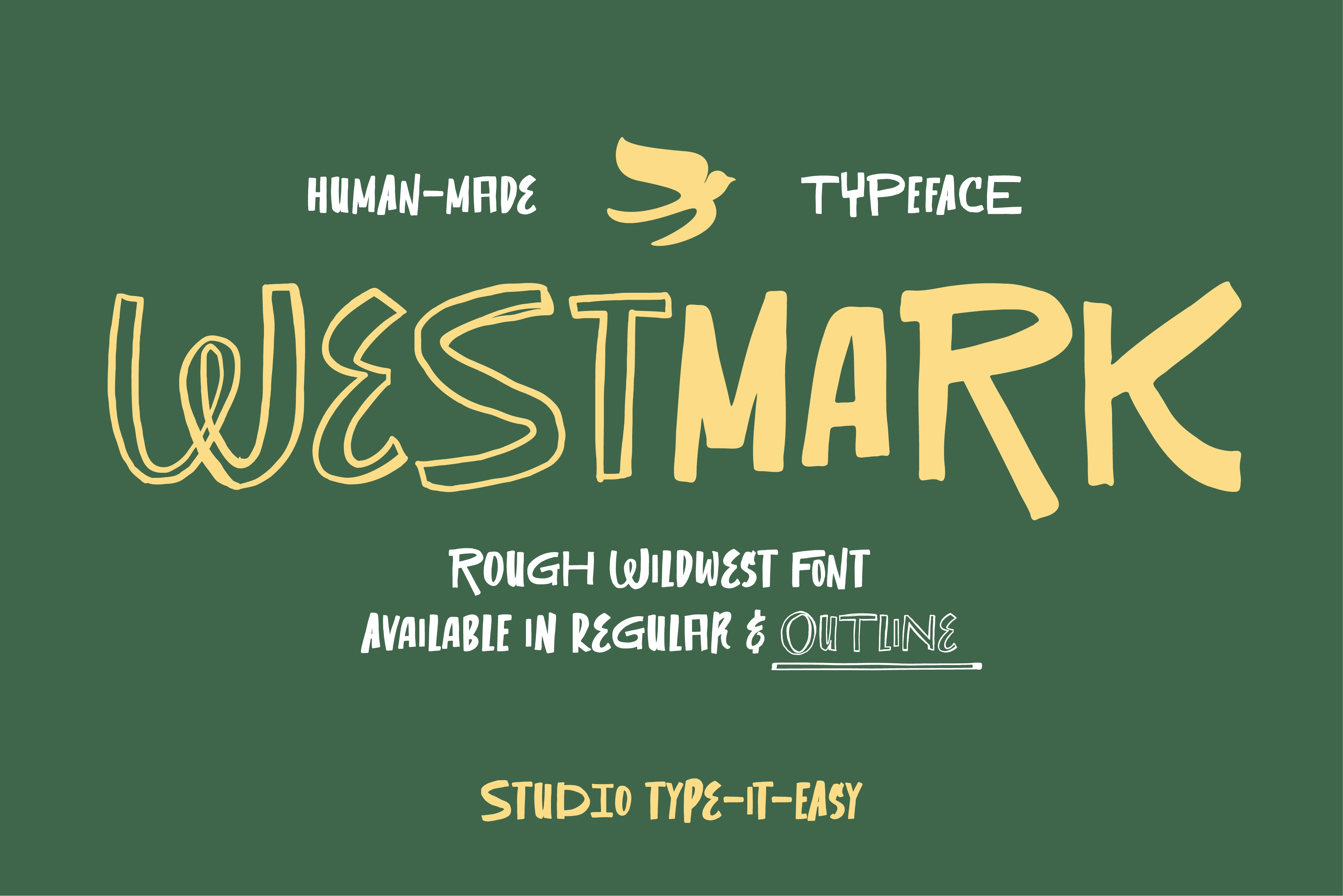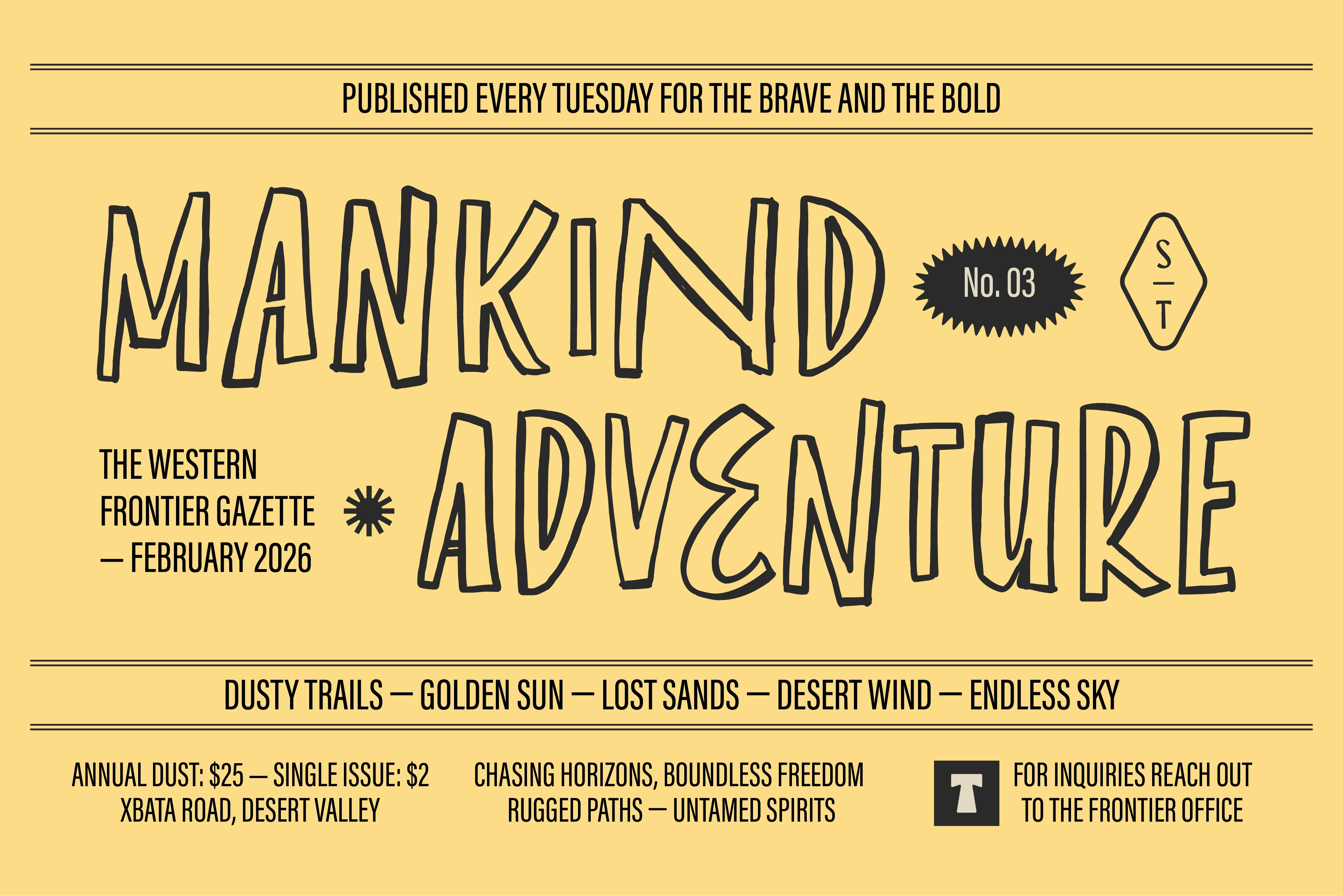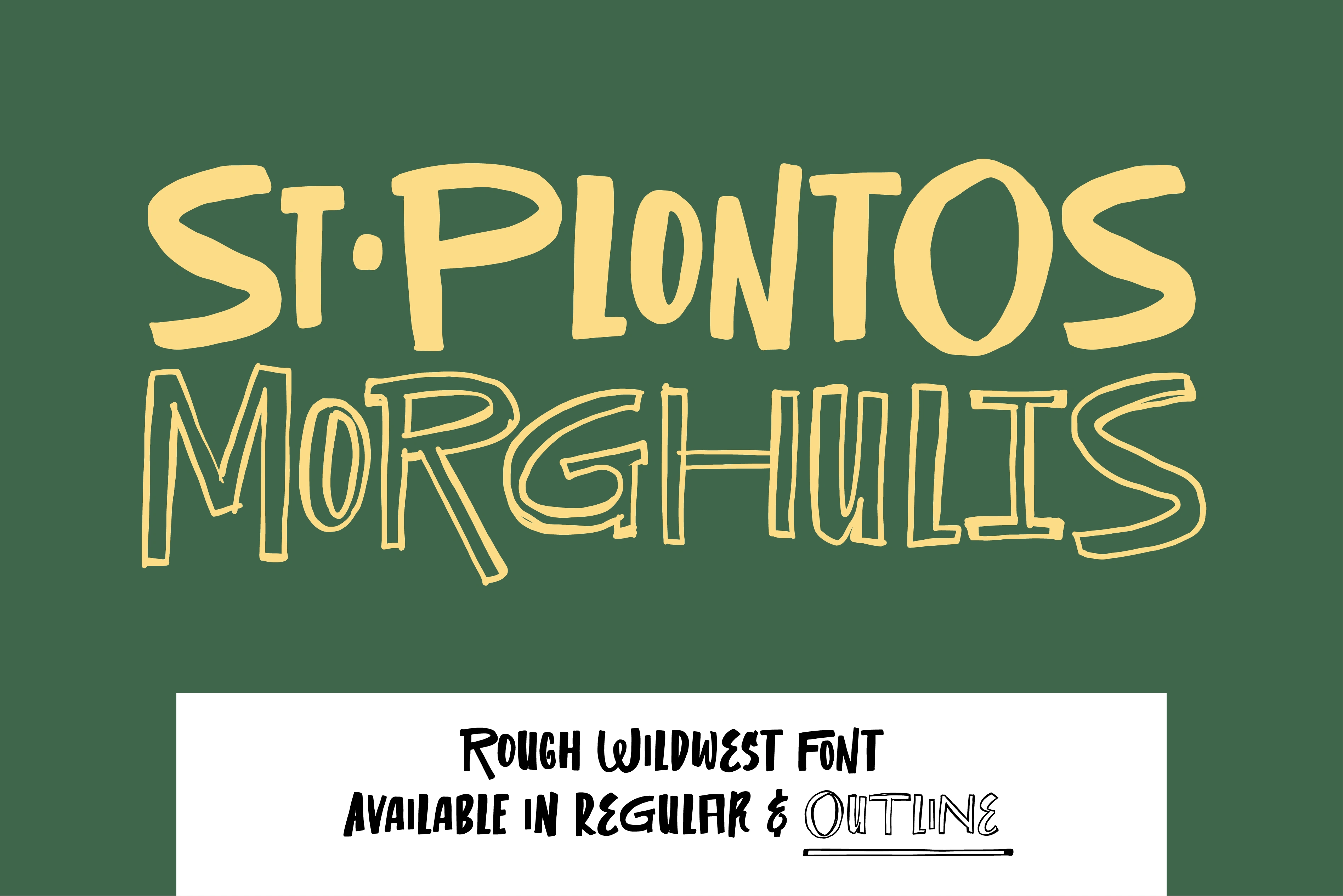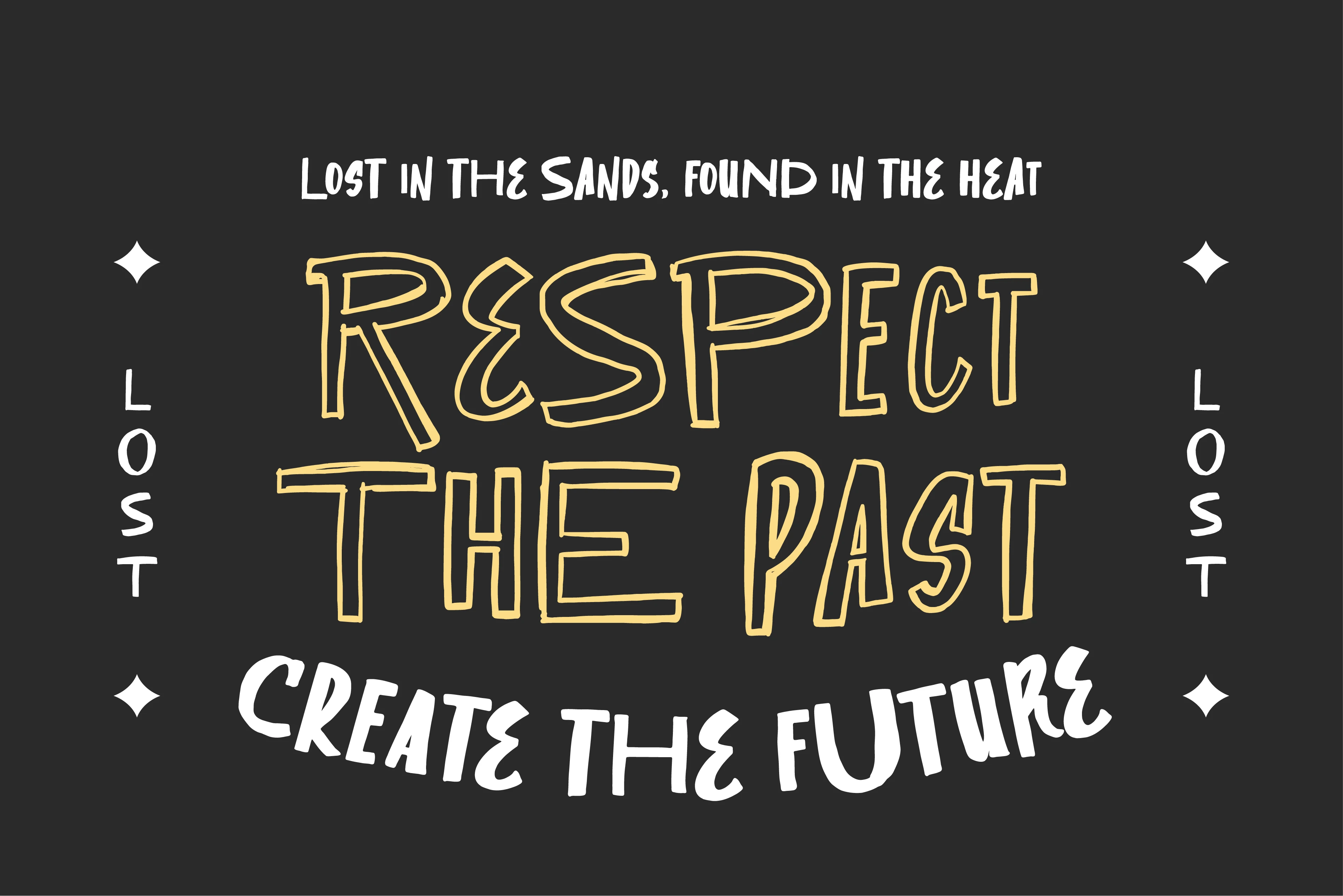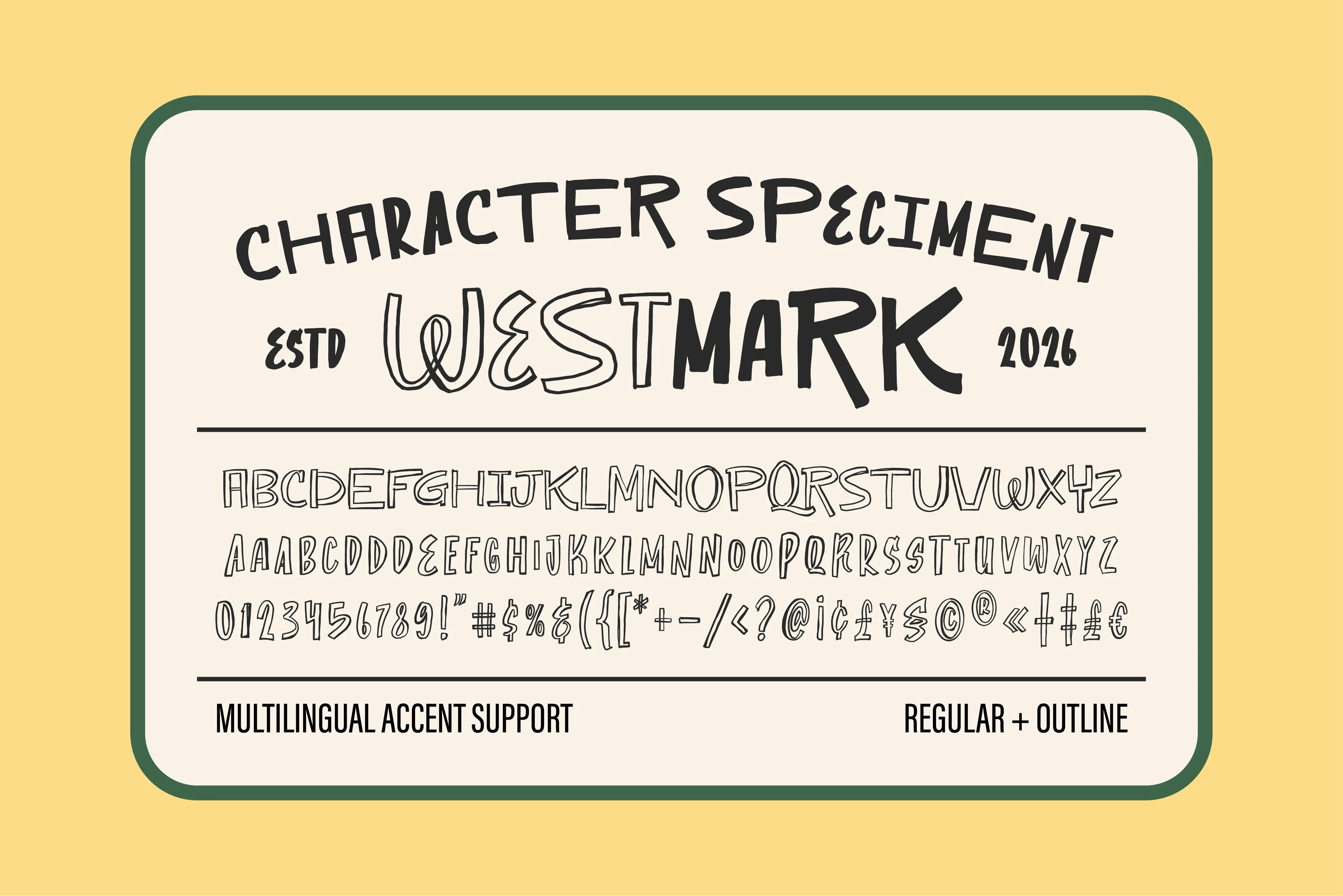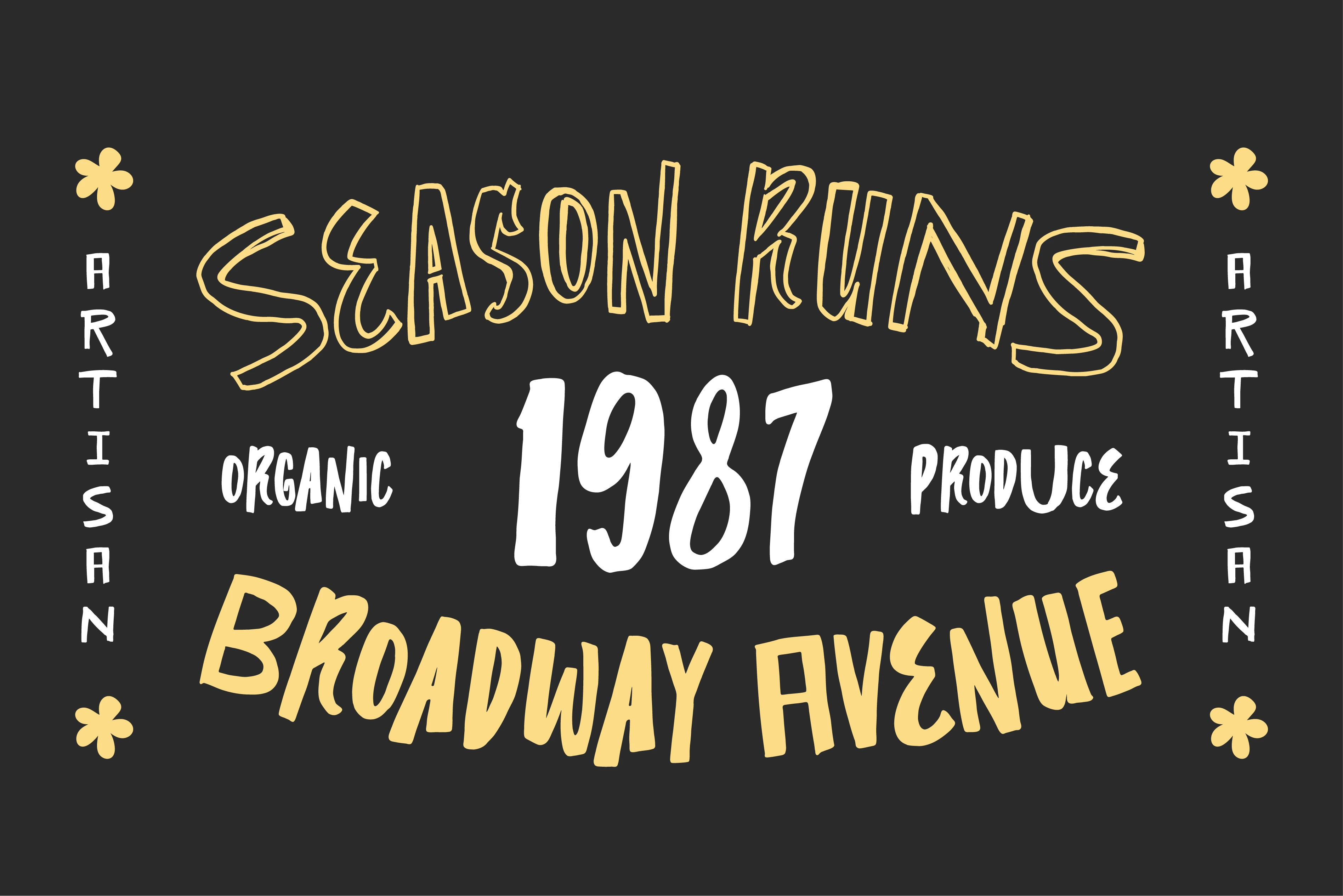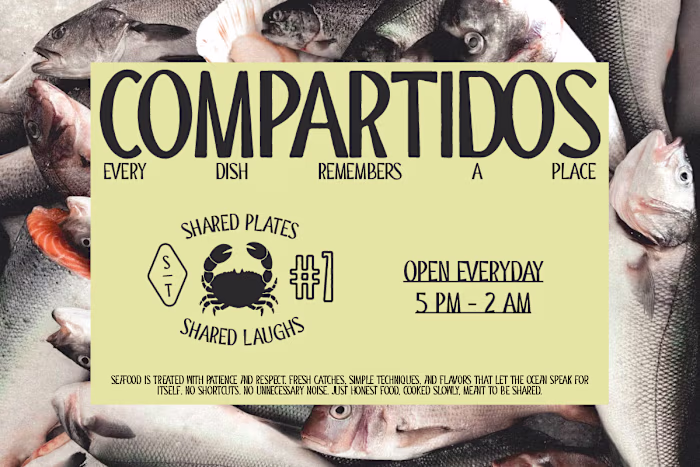
Westmark Font Design
Bring the spirit of the frontier to your digital canvas with Westmark. This isn't just another western font; it’s a tribute to the "human-made" aesthetic, blending rugged Wildwest vibes with a modern, quirky handwritten touch.
Designed under Studio Type-it-Easy, Westmark captures that authentic, raw energy perfect for brands that aren't afraid to show some character.
Designed Westmark, a western-style font with a modern touch by Type-it-Easy Studio, part of WebberCo.